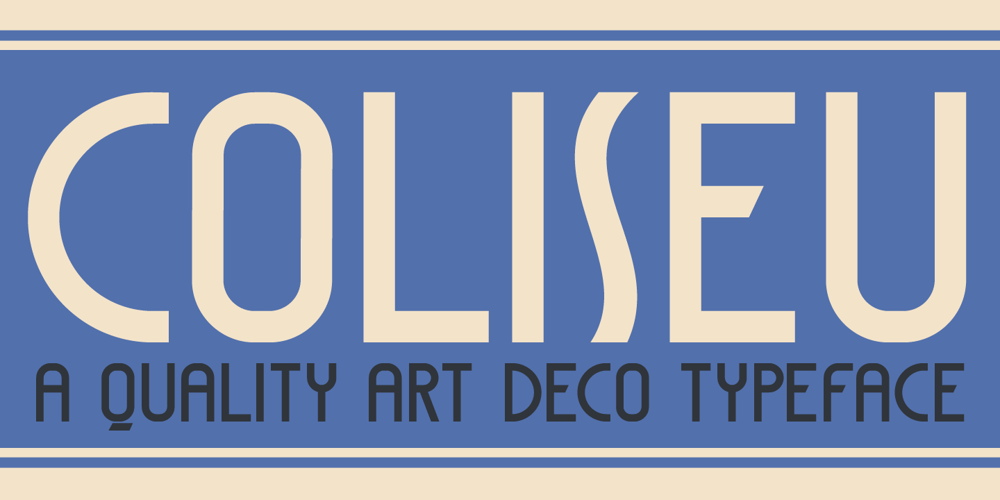
Coliseu Font Family was designed by David Kerkhoff and published by Hanoded. Coliseu contains 1 styles and family package options. Coliseu is a gorgeous, all caps Art Deco style font. Clean lines, rounded edges and an appealing style make Coliseu a very useful font. It was named after the beautiful Coliseu do Porto – an art deco landmark in that Portuguese city. Coliseu font comes with all diacritics.